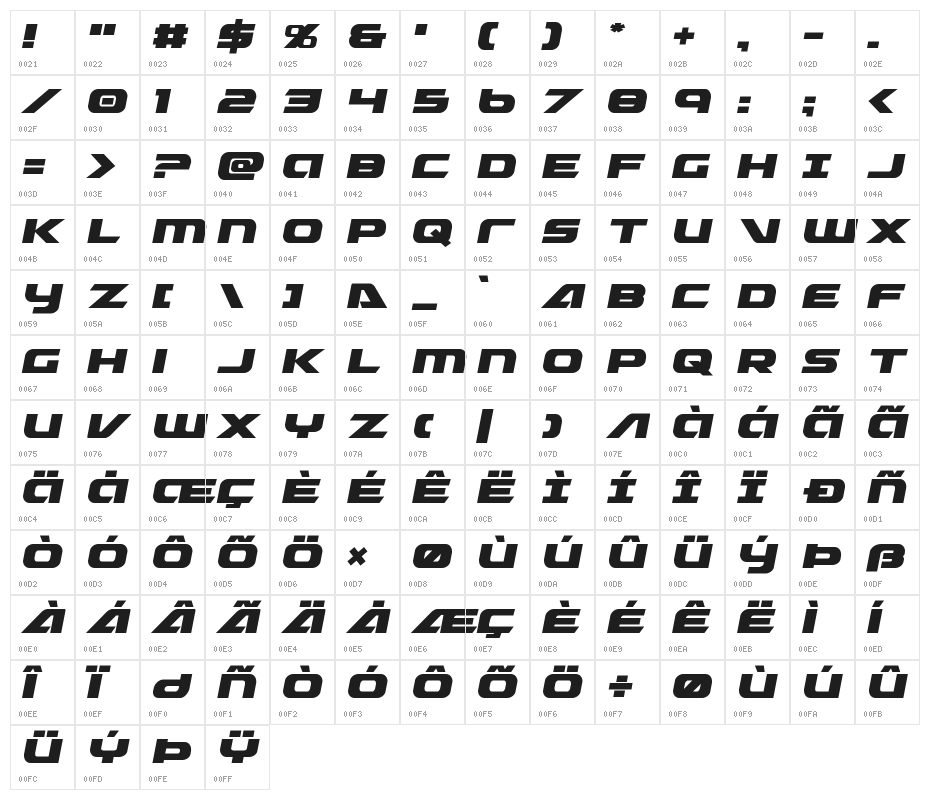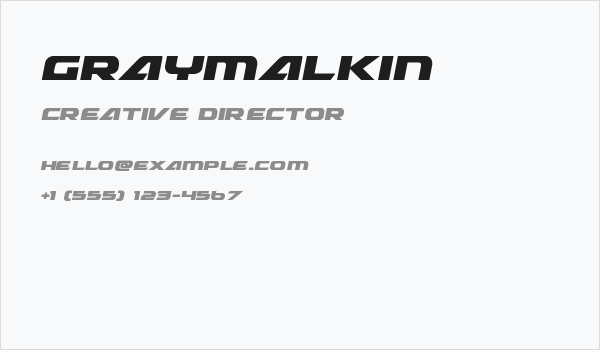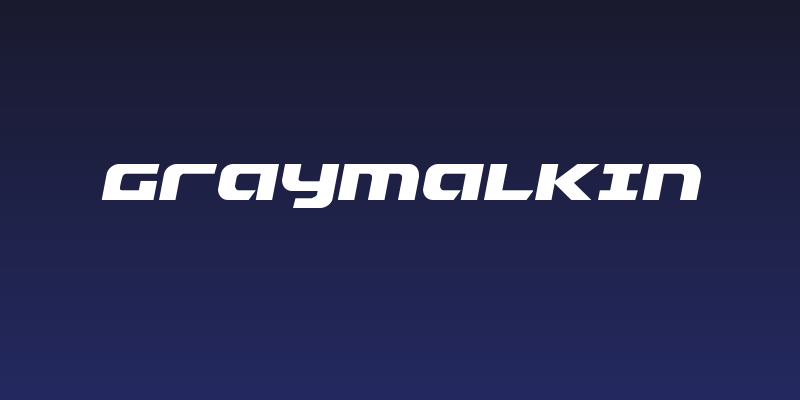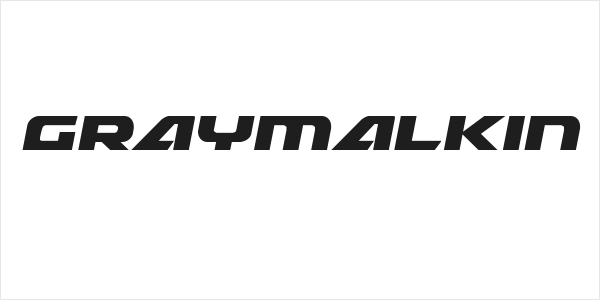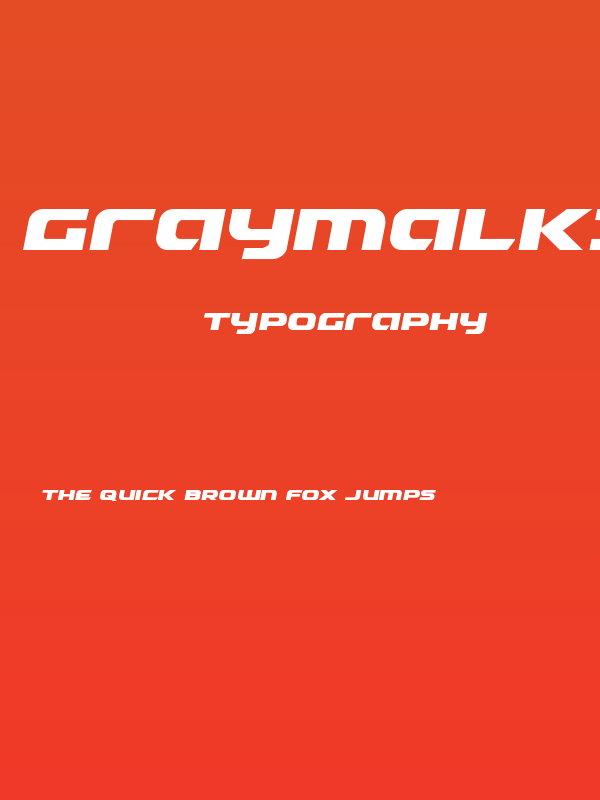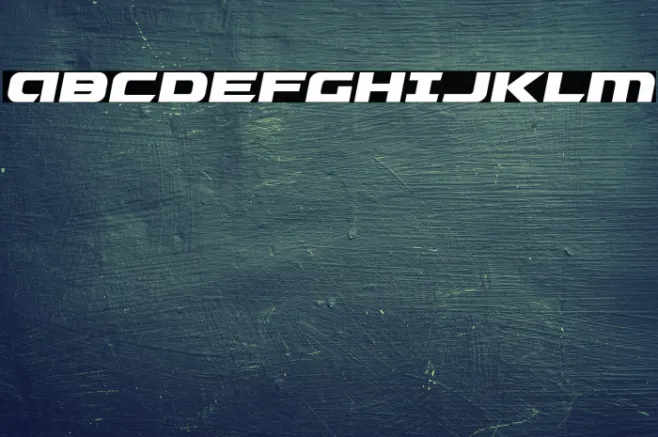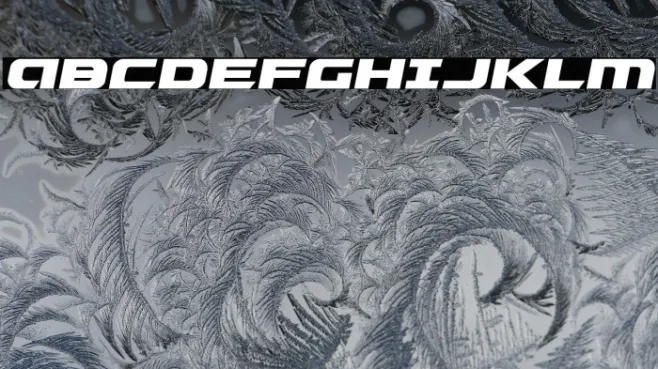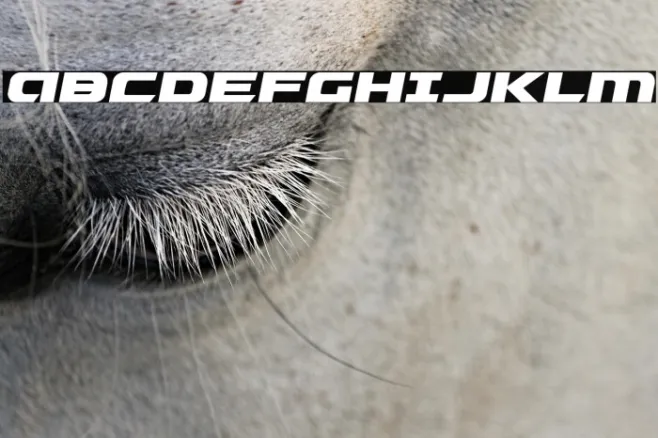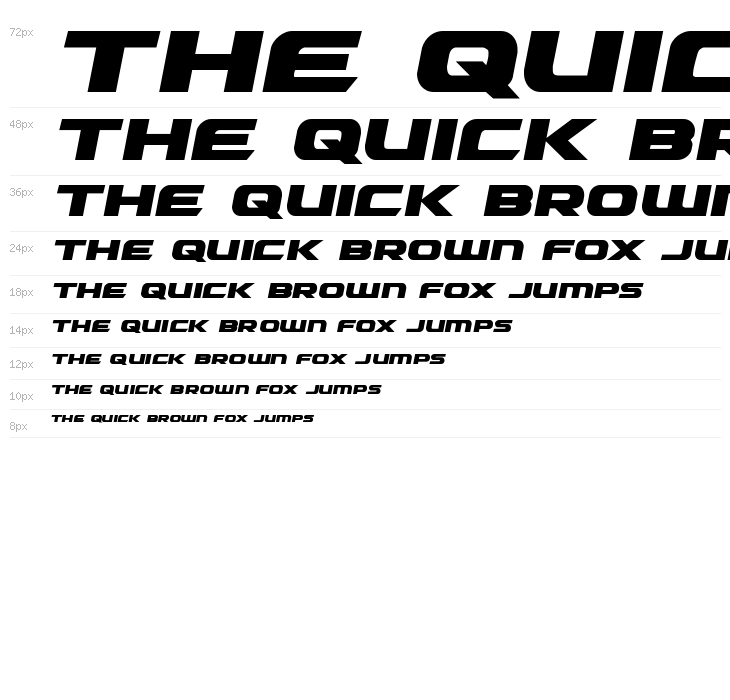
Graymalkin Font
Graymalkin Description
This font exhibits a bold, futuristic style with angular edges and a dynamic slant, giving it a sense of motion and energy. The characters are uniformly bold, with consistent stroke thickness throughout, contributing to a strong visual impact. The uppercase and lowercase letters maintain a cohesive design, while the numerals and special characters follow the same stylistic cues, ensuring uniformity across all glyphs. The font's geometric structure and sharp angles make it ideal for projects that require a modern and edgy aesthetic.
| Proposed Projects | Ideal for technology branding, sports team logos, video game titles, and sci-fi themed designs. |